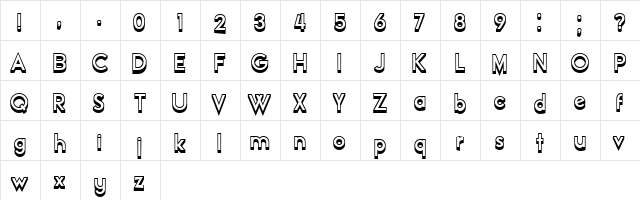
Official Hollow Regular
Design Context for Official Hollow Typeface
Official Hollow is a composed and adaptable typeface that performs quietly and consistently across a wide range of design contexts.